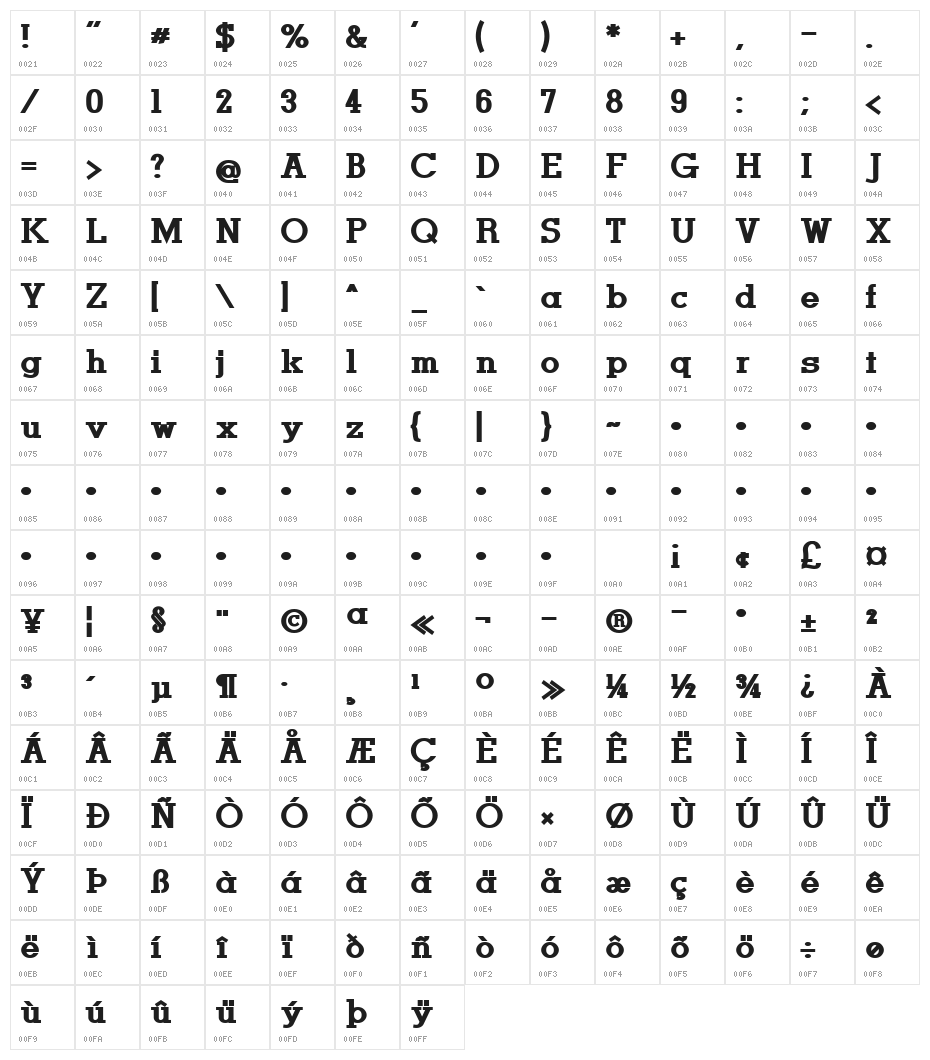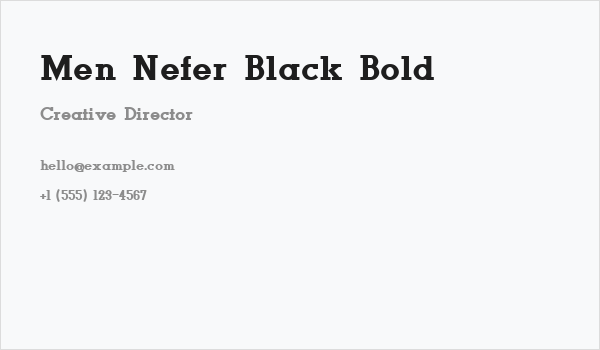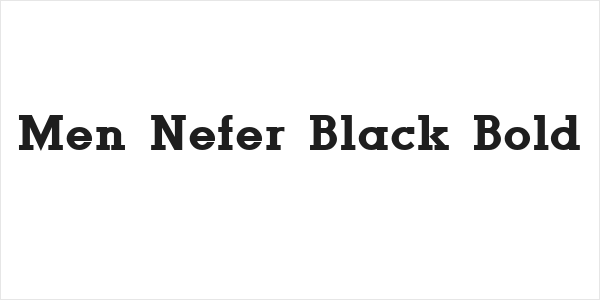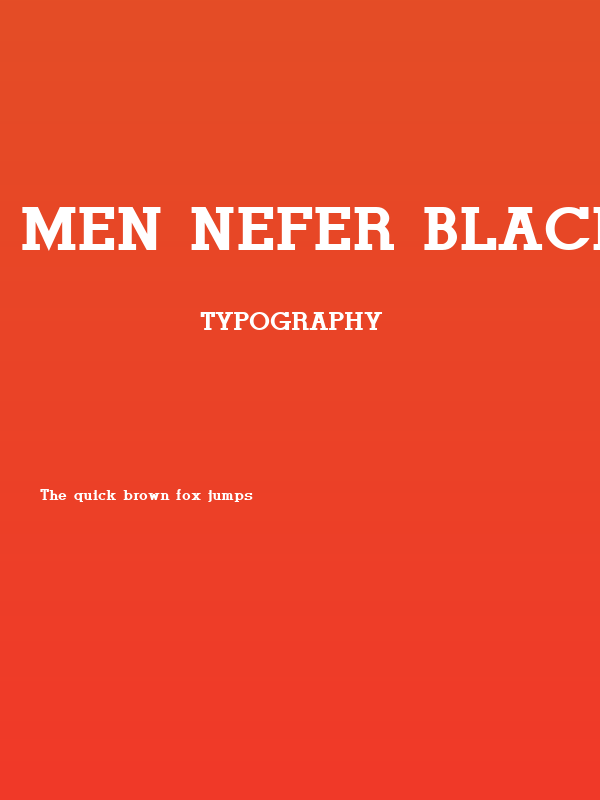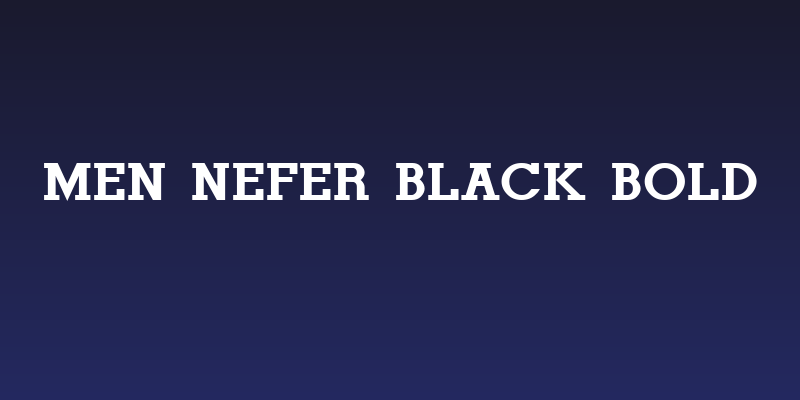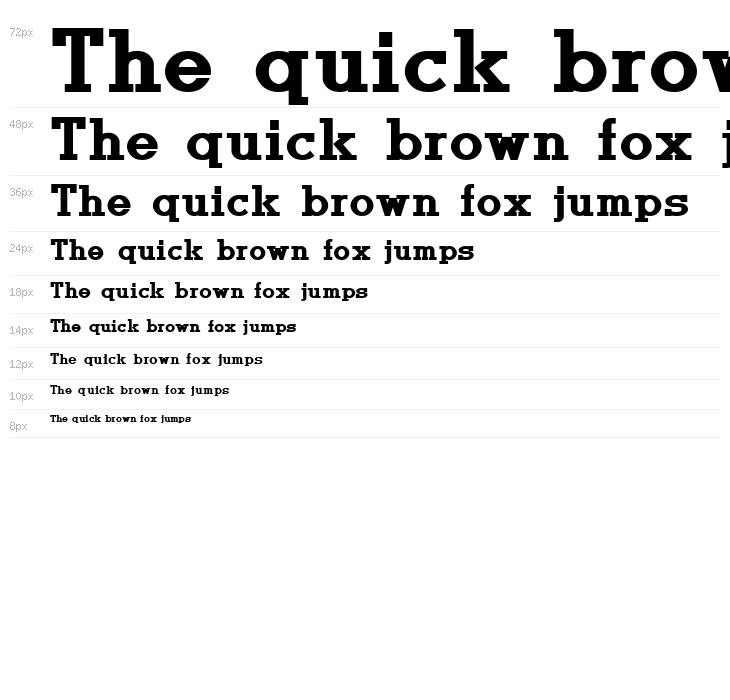
Men Nefer Black Bold Font
Men Nefer Black Bold Description
This font exhibits a bold and assertive style, characterized by thick, strong strokes and a commanding presence. The uppercase letters are robust and impactful, while the lowercase letters maintain a consistent weight, offering a harmonious balance. The numerals are equally bold, ensuring clarity and readability. Special characters are designed with the same boldness, making them stand out effectively. This font's overall appearance is both modern and classic, making it versatile for various design needs.
Proposed ProjectsIdeal for headlines, posters, branding, and any project requiring a strong visual impact.